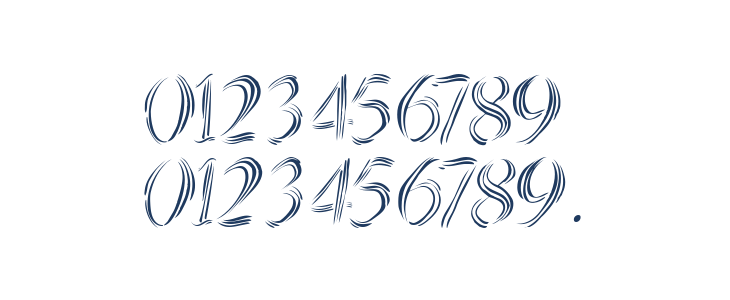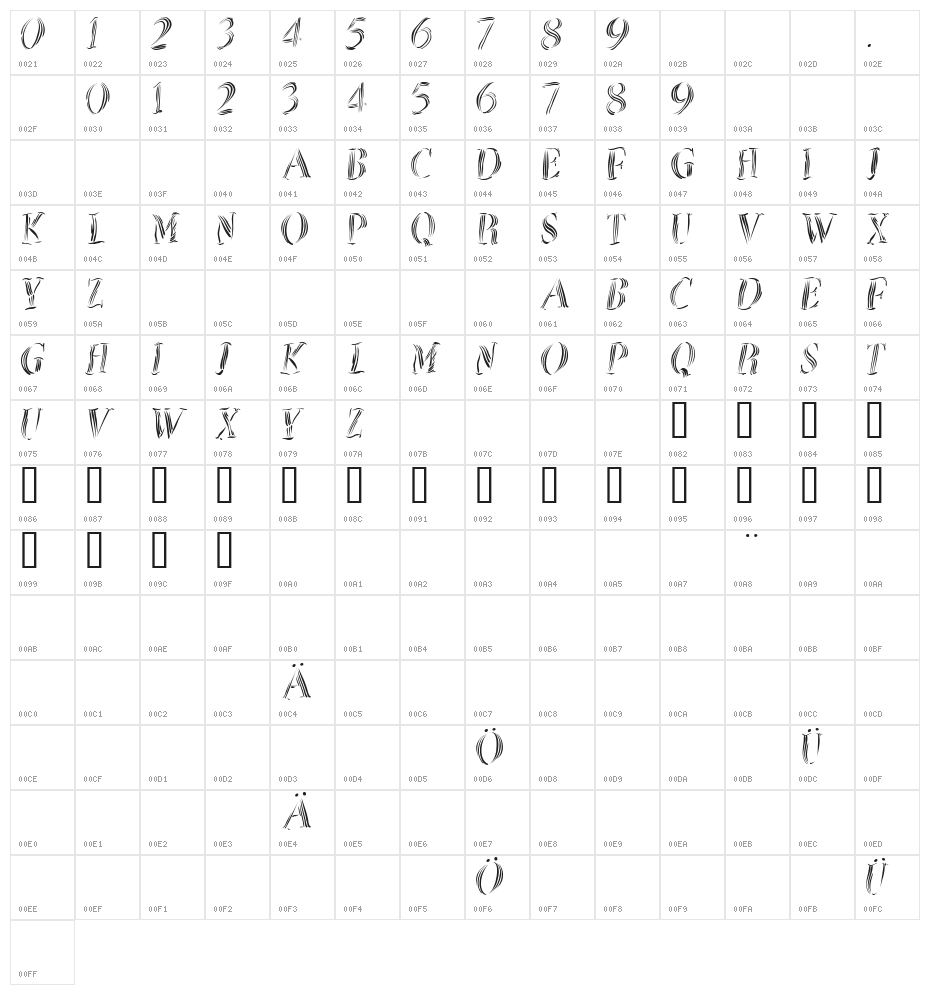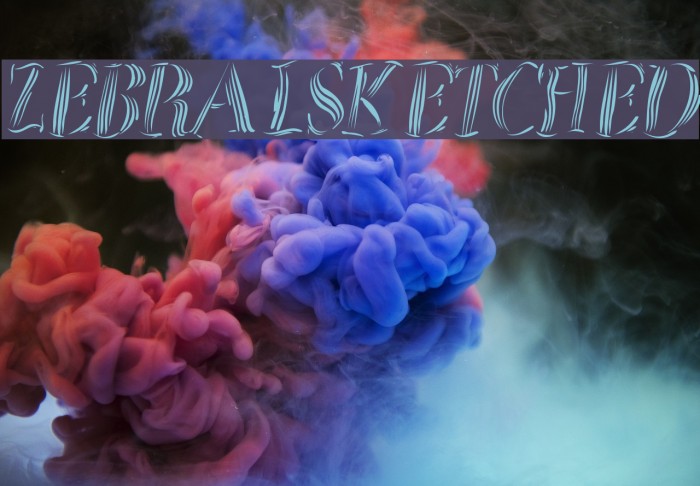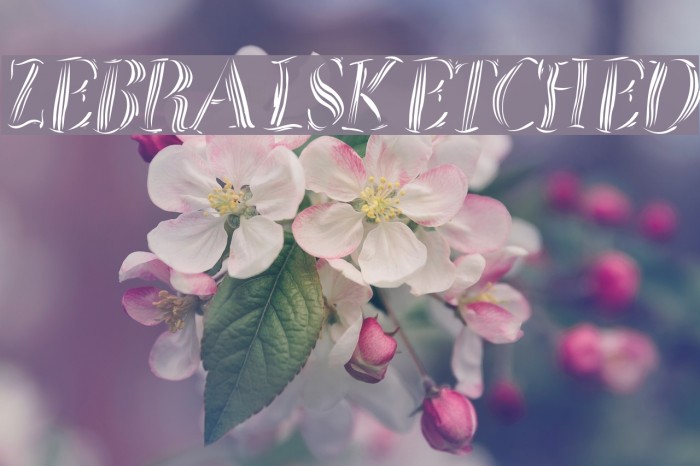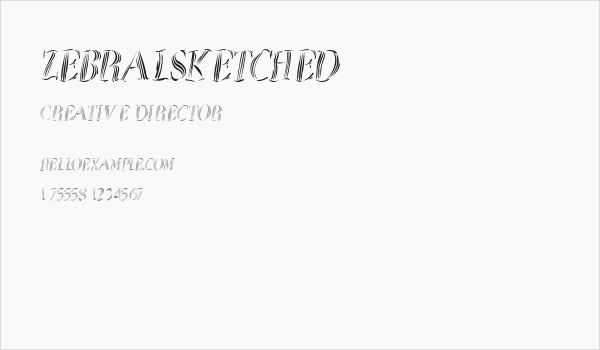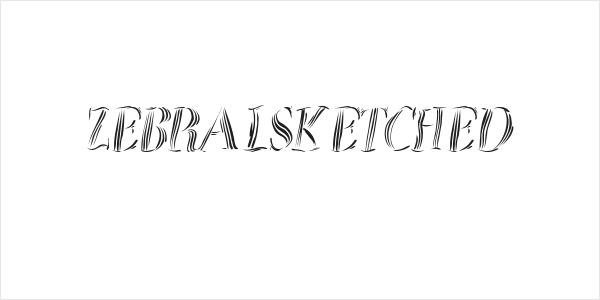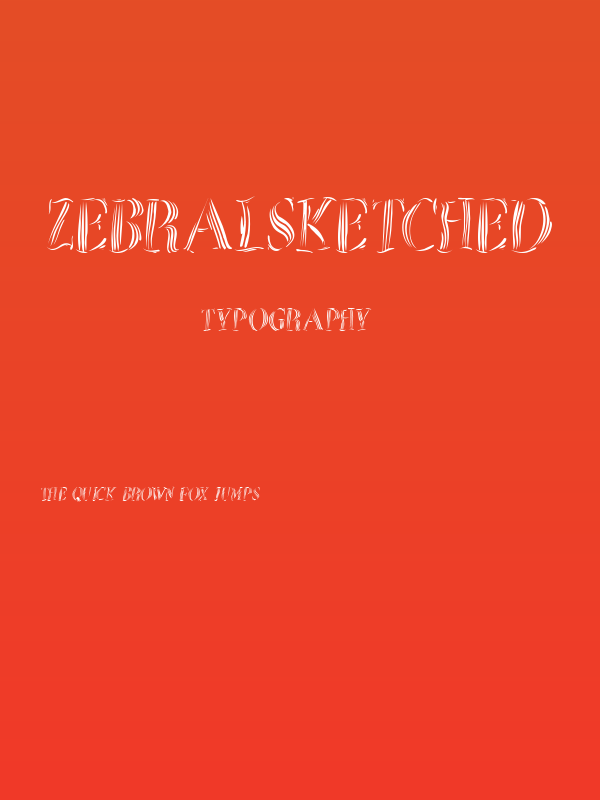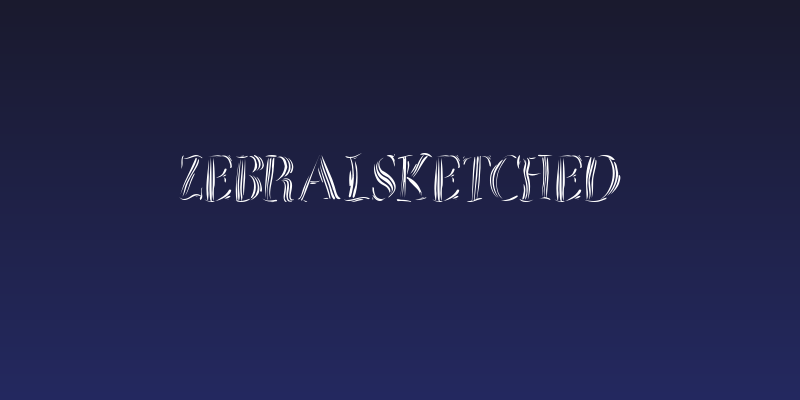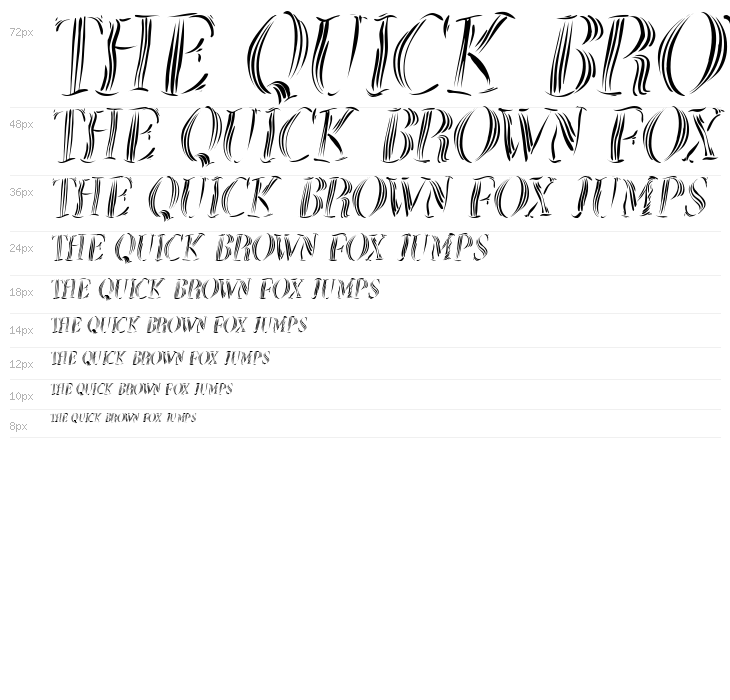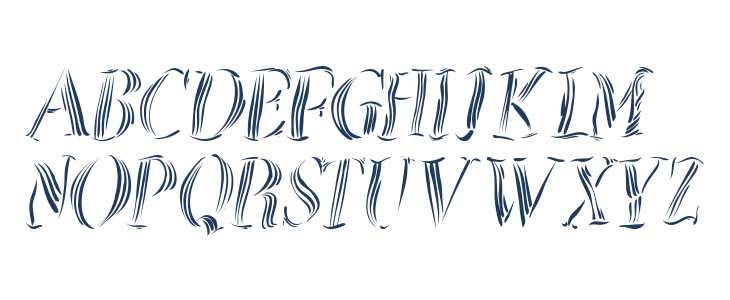
ZebralSketched Font
ZebralSketched Description
This font features a unique sketched design that mimics the appearance of zebra stripes, giving it a dynamic and artistic flair. The letters are bold and have a hand-drawn quality, with irregular strokes that create a sense of movement and texture. The uppercase and lowercase letters maintain a consistent style, with each character exhibiting a playful yet sophisticated look. The numbers and special characters follow the same design principles, ensuring a cohesive appearance across all elements. This font is ideal for projects that require a creative and eye-catching typeface.
| Use Case | Headlines, Logos, Artistic designs |
| Proposed Projects | Ideal for creative projects such as posters, branding, and artistic designs that require a bold and unique typeface. |